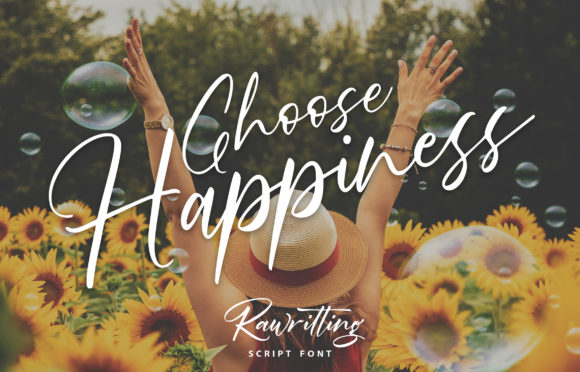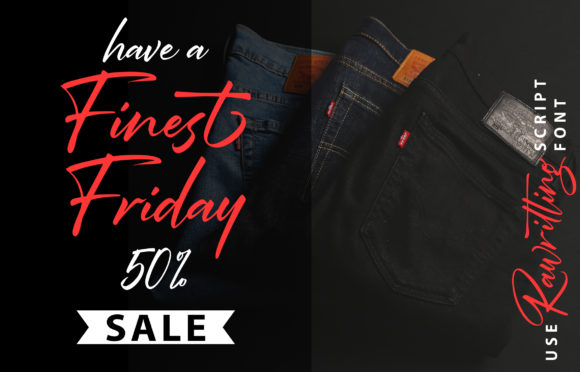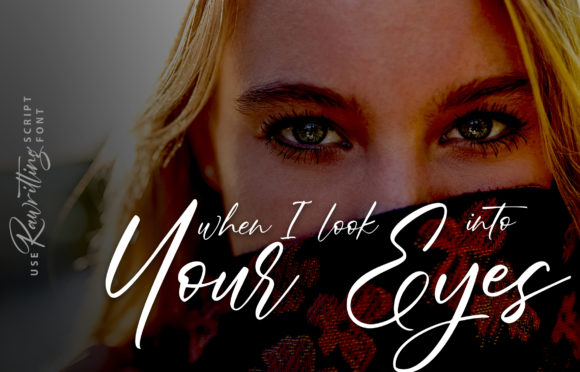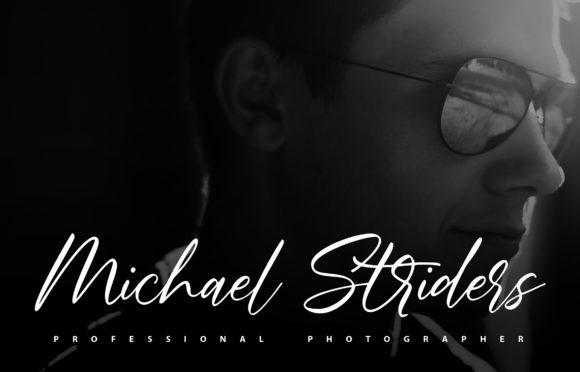
Introduction to Rawriting Font
As a designer, there’s nothing quite like the thrill of bringing a creative project to life. The spark of inspiration, the rush of adrenaline as you start to build something from scratch – it’s a feeling like no other. And when that project requires a high-quality, unique font to give it that extra oomph, you know you’re in for a treat.
That’s exactly what you get with the stunning Rawriting Font. This elegant, handwritten font is a masterclass in design, featuring smooth lines, gorgeous glyphs, and stunning alternates that will elevate any project to new heights. Whether you’re working on a logo, a brochure, or a website, Rawriting Font is the perfect addition to your design resource arsenal.
Key Features of Rawriting Font
- High-quality, hand-drawn design ideal for creative projects and artistic purposes.
- Comes with a transparent background, making it easy to use in various design applications.
- Includes a range of weights and styles, allowing for flexibility in font customization and design.
- Designed at a high resolution of 300 DPI, ensuring crisp and clear display in various digital and print applications.
- Perfect for designers and artists looking for a unique, hand-crafted font to elevate their creative project.
Honest Review: Rawriting Font
As a designer, I’m always on the lookout for high-quality design resources to enhance my creative projects. The Rawriting Font has caught my attention, and I’m excited to share my honest review.
- ✨ The font’s unique and creative style adds a touch of personality to any design project.
- ✨ The transparent background makes it easy to use in various design scenarios.
- ✨ The font is well-suited for creative projects, such as graphic design, digital art, and typography-based designs.
- ⚠️ The font might be too quirky for more conservative design projects or corporate branding.
- ⚠️ Some users might find the font’s style too overwhelming or busy.
Overall, I’m impressed with the Rawriting Font. While it may not be suitable for every design project, its unique style and versatility make it an excellent resource for designers looking to add some personality to their work. If you’re looking for a free, high-quality font to enhance your creative projects, the Rawriting Font is definitely worth checking out.
Use Rawriting Font for high-quality design projects, such as logos, business cards, and creative projects that require a unique and elegant touch. You can also use it with a transparent background to create a modern and sleek design.
Rawriting Font is commonly used for:
- Business cards and stationery
- Creative project materials, such as brochures and flyers
What is the recommended resolution for using the Rawriting Font?
The Rawriting Font is designed to be used at high resolutions, typically 300 DPI or higher. Using the font at lower resolutions may affect its quality and readability. If you’re planning to use the font for printing or high-resolution designs, we recommend using it at 300 DPI or higher.